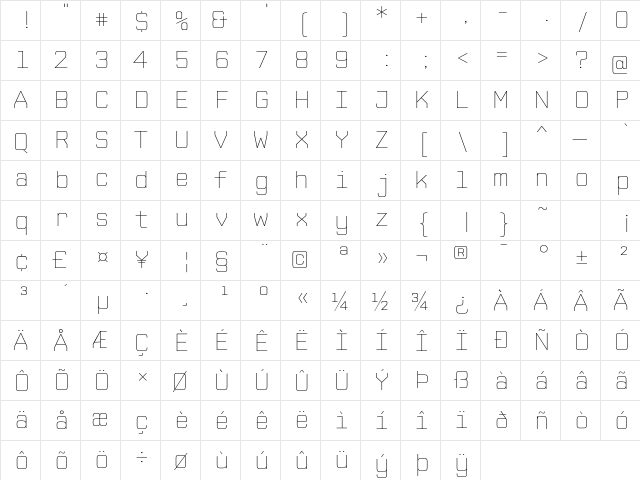
CPMono_v07 ExtraLight
| Foundry | Tino Meinert |
| Designer | Tino Meinert |
Design Context for CPMono_v07 Typeface
CPMono_v07 brings the precise, column-aligned rhythm of monospaced typography to designs that value technical clarity and systematic order. Its slender proportions lend an understated elegance to any composition.
Pro Tip: Pair CPMono_v07 with a proportional sans for UI contexts where code-style labels and regular body copy need to coexist.